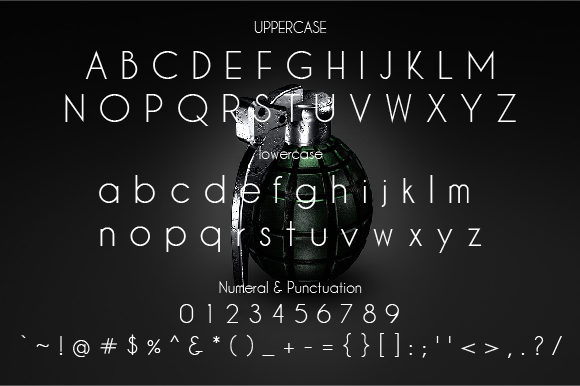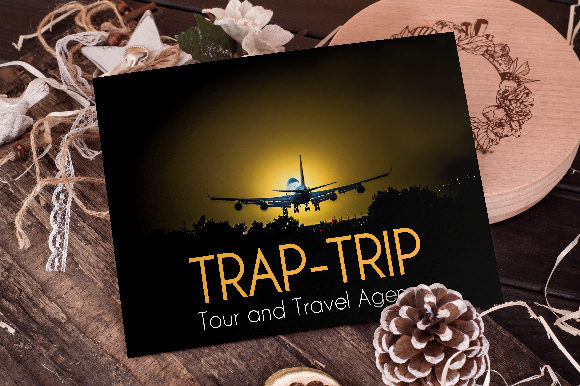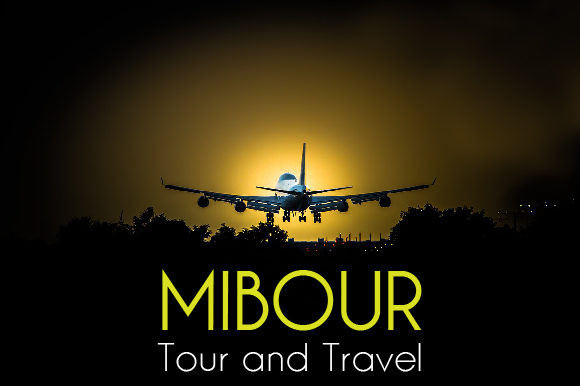
Introducing the Granat Family Font: Elevate Your Designs with Modern Style and Readability
In the world of typography, finding the perfect font can make all the difference in creating visually stunning designs. For designers and crafters looking for a fresh and modern style that doesn’t compromise on readability, the Granat Family Font is an excellent choice. This versatile font family is designed to cater to a wide range of design needs, from magazines and flyers to branding, logos, headlines, and high fashion.
The Granat Family: A Blend of Modernity and Readability
The Granat Family Font stands out for its unique blend of modern style and exceptional readability. Its clean lines, balanced proportions, and thoughtful design elements make it an ideal choice for projects where visual impact and legibility are paramount. Whether you’re working on a high-end fashion magazine, a sleek brand identity, or an eye-catching flyer, the Granat font family offers the flexibility and style to elevate your designs.
Key Features of the Granat Family Font
- Modern Style: The Granat font boasts a contemporary look that is sure to make your designs stand out. Its modern aesthetic is perfect for projects that demand a fresh and current feel.
- High Readability: Despite its stylish appearance, the Granat font maintains high readability, making it suitable for both headings and body text. This versatility ensures that your message is conveyed effectively, regardless of the project’s requirements.
- Wide Range of Applications: From fashion magazines and high-end branding to logos, headlines, and more, the Granat font family is incredibly versatile. Its wide range of applications makes it a valuable addition to any designer’s toolkit.
Applications of the Granat Family Font
The Granat Family Font’s adaptability and stylish appearance make it suitable for a multitude of design applications. Here are some of the key areas where this font family shines:
- Magazines and Editorials: Add a touch of sophistication to your magazine layouts with the Granat font’s elegant and readable style.
- Flyers and Brochures: Create eye-catching promotional materials that capture attention and convey your message clearly.
- Branding and Logos: Establish a strong brand identity with a logo that exudes modernity and professionalism.
- Headlines and Titles: Make a statement with compelling headlines that are as visually appealing as they are readable.
- High Fashion: Elevate your fashion designs with a font that embodies style, elegance, and a contemporary vibe.
Why Choose the Granat Family Font?
In a sea of font options, the Granat Family Font offers a unique combination of style, versatility, and readability. Here are a few reasons why designers and crafters are gravitating towards this font family:
- Unique Aesthetic: The Granat font provides a distinctive look that can help your designs stand out from the crowd.
- Time-Saving: With its wide range of applications, the Granat font family saves you time and effort in searching for different fonts for various projects.
- Professionalism: The modern and clean design of the Granat font lends a professional touch to your projects, enhancing their overall impact.
The Granat Family Font is a powerful tool for designers and crafters looking to infuse their projects with a modern style without compromising on readability. Its versatility, aesthetic appeal, and ease of use make it an excellent addition to any design toolkit. Whether you’re working on a fashion magazine, a brand identity, or promotional materials, the Granat font family is sure to elevate your designs to new heights.
Discover the creative possibilities with the Granat Family Font and take your designs to the next level.